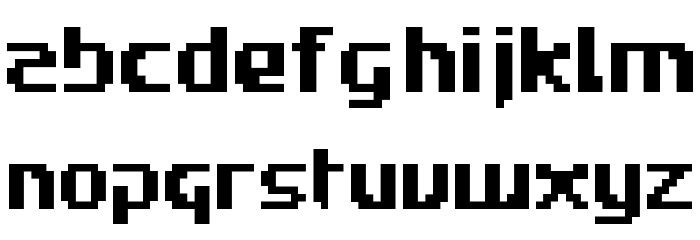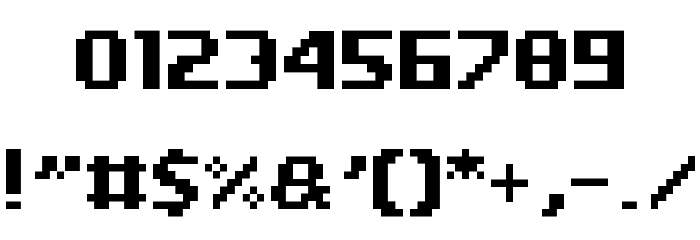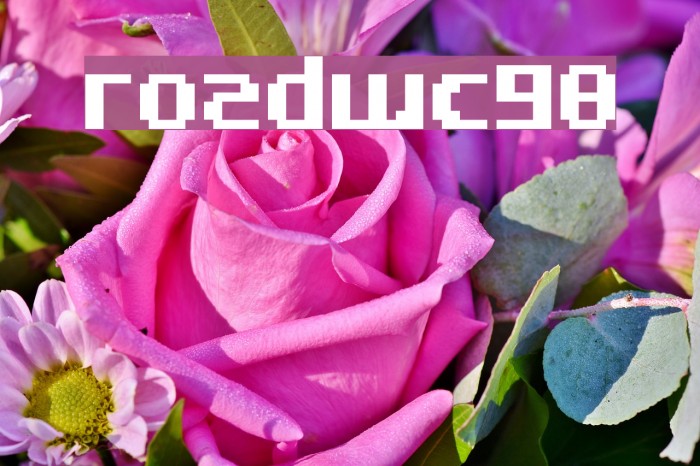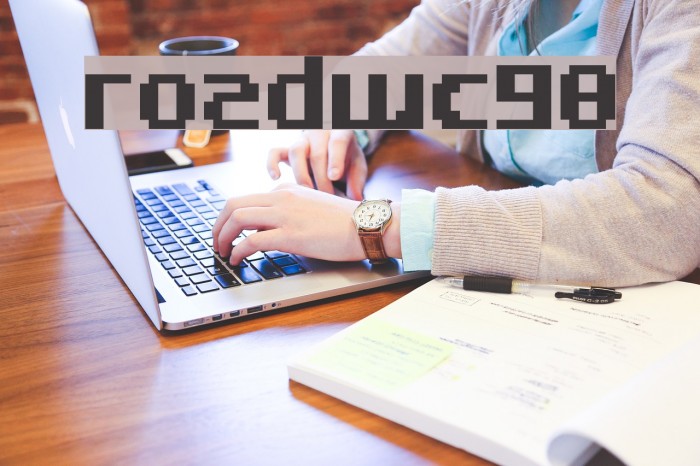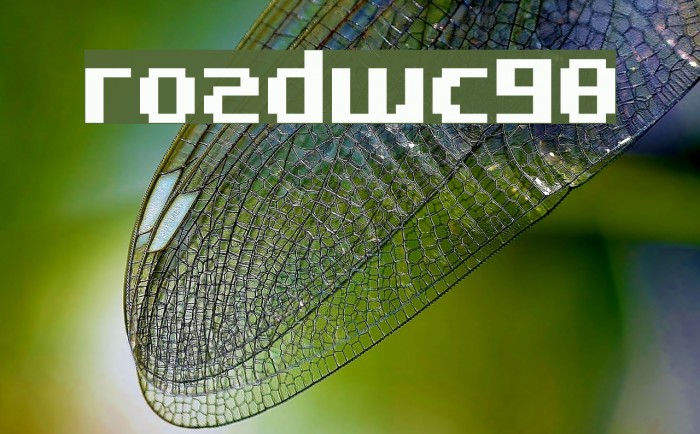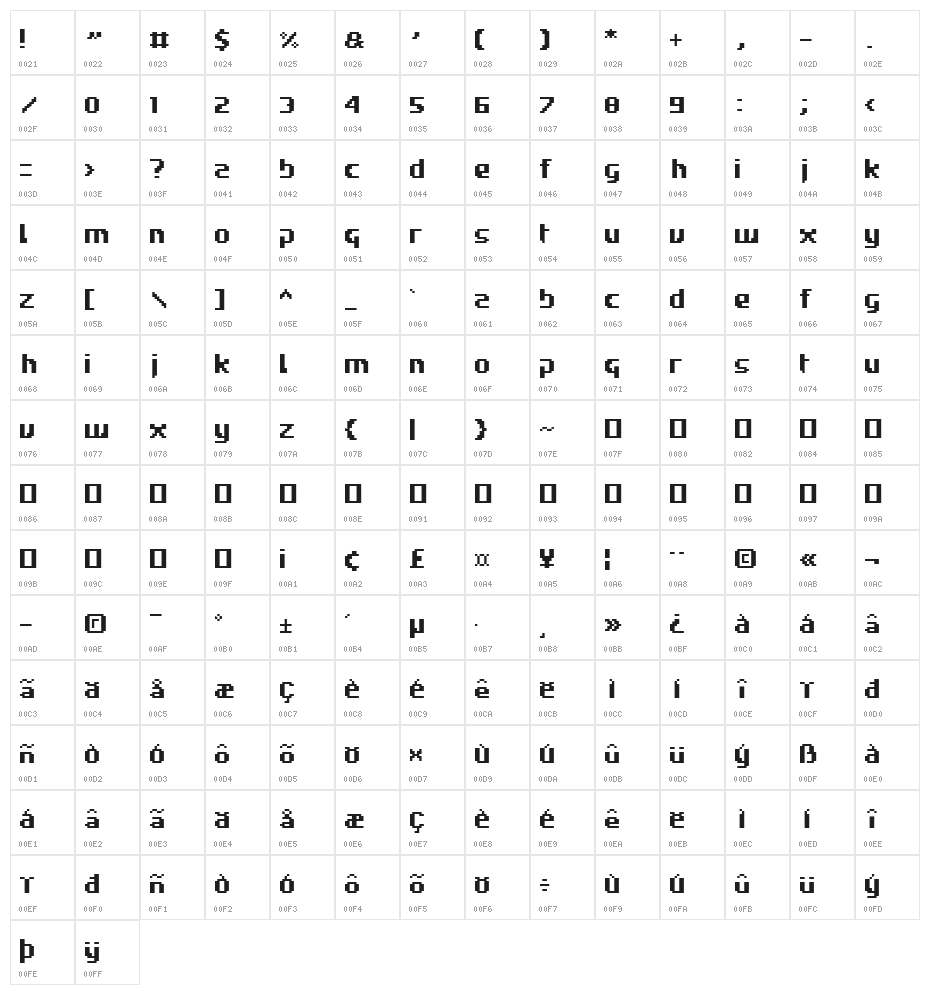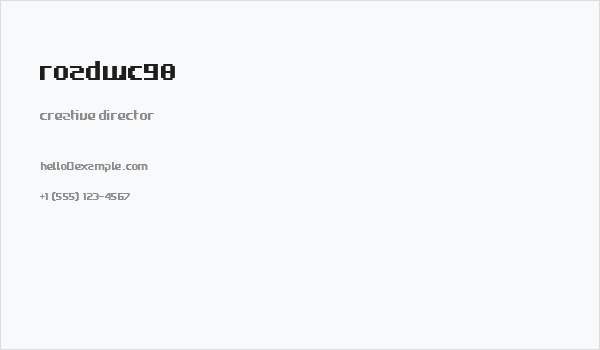
RoadWC98 Font
This font features a bold, pixelated design reminiscent of early digital displays and video game graphics. Each character is constructed with a blocky, geometric style, giving it a retro, nostalgic feel. The uniformity in height and width across letters and numbers creates a cohesive and structured appearance. The font maintains a consistent stroke thickness, contributing to its low contrast and straightforward readability. Special characters are designed with the same pixelated approach, ensuring visual harmony throughout the character set.
- Proposed Projects: Ideal for projects that aim to evoke nostalgia, such as retro-themed video games, digital art, or vintage-inspired graphic designs. It can also be used effectively in branding for tech products or events that celebrate digital history.
- Overall Style: Retro, Digital
- Use Case: Headlines, Logos, Digital Art